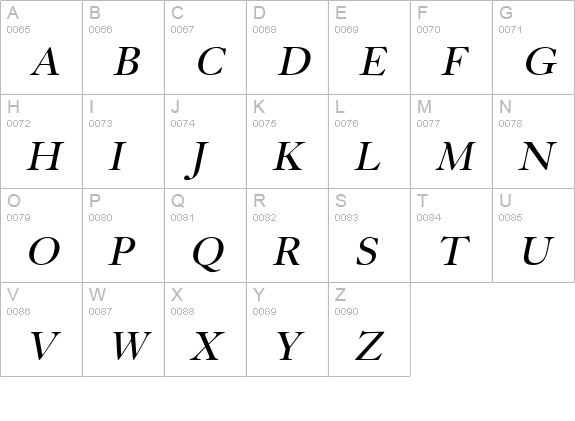
Bliss Italic is a distinctive, italic variant in the Bliss typeface family \xE2\x80\x94 well suited to design and typography projects.
Bliss Italic font exudes elegance and sophistication with its sleek and stylish design. The flowing curves and delicate strokes of this typeface convey a sense of grace and beauty, making it perfect for adding a touch of refinement to any project. Whether used for headers, quotes, or body text, Bliss Italic brings a sense of modernity and class to your designs. The best part? Bliss Italic font is available for free download at FontsMarket.com. Now you can easily access this stunning typeface and elevate your creative projects without breaking the bank. Don't miss out on the opportunity to enhance your designs with the timeless charm of Bliss Italic font - download it today and add a touch of luxury to your work!